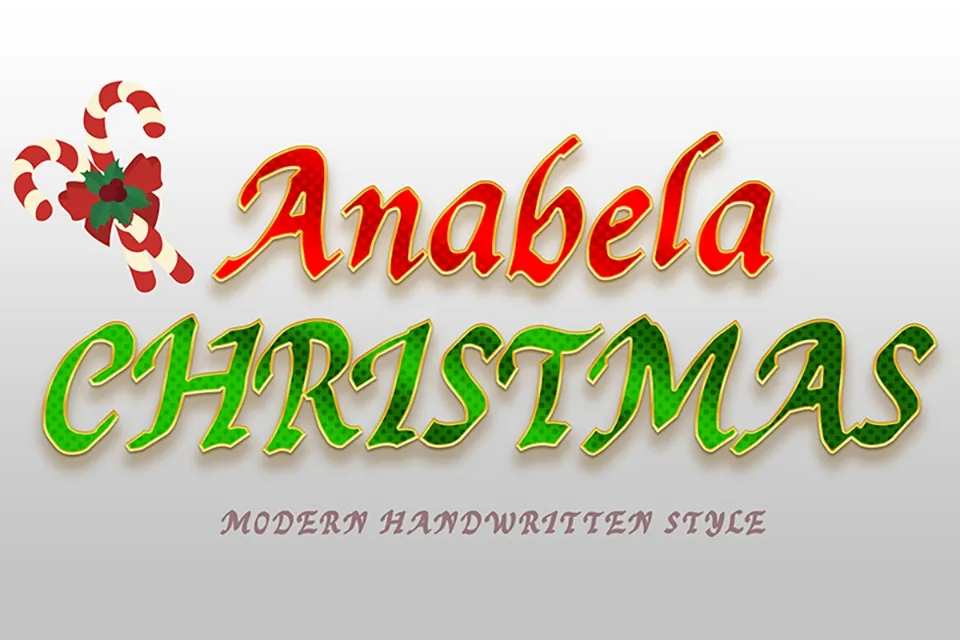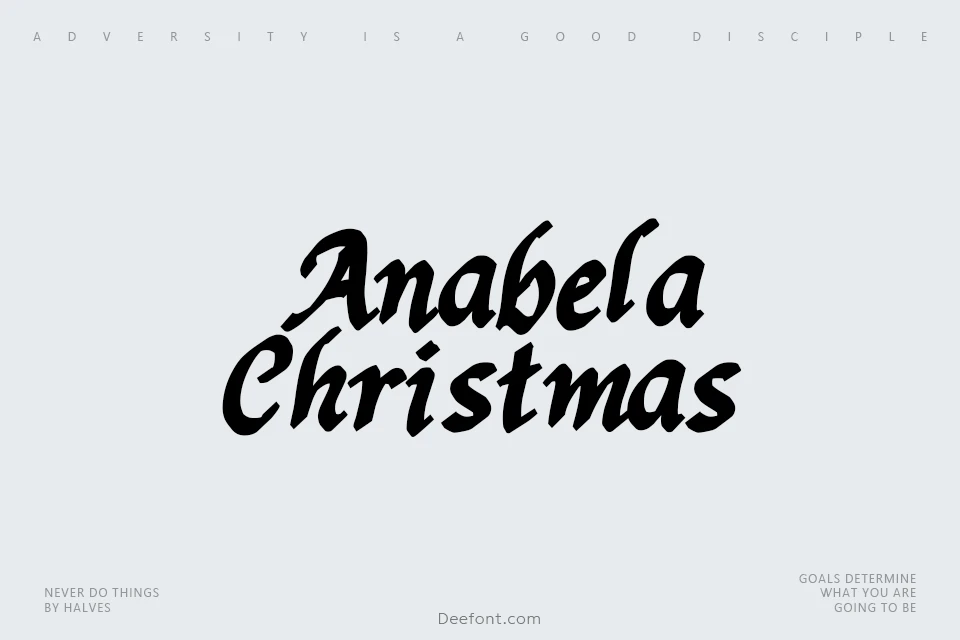
Anabela Christmas Font
Anabela Christmas Font font is a modern handwritten style typeface with a festive flair, perfect for holiday-themed designs. It features elegant, stylized characters with both uppercase and lowercase letters, numerals, punctuation, and multilingual support, making it ideal for branding, invitations, posters, and more.